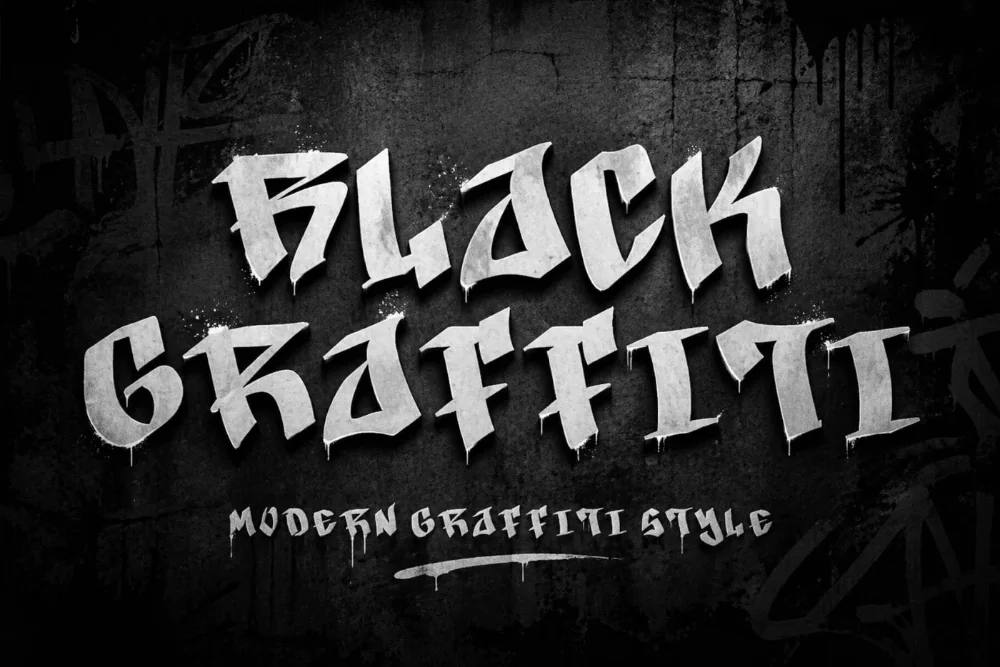
Blackout Graffiti Display Font
There is no shortage of options when you search for a black graffiti font, so here is precisely what makes this one different. Solid black shapes with hard, unapologetic corners. The most graphic option here when you want type to behave like a logo.
Angles are cut clean and flat with almost no curves, giving each character a stencil-like silhouette. It holds its shape at very small sizes and reverses out of dark backgrounds without filling in.
A strong pick for logo drafts, monochrome merch, embroidery digitising, and vinyl cutting.
Give it room. Crowding this kind of alphabet against the edge of a layout wastes the shapes, and a generous margin does more for the design than any extra effect.